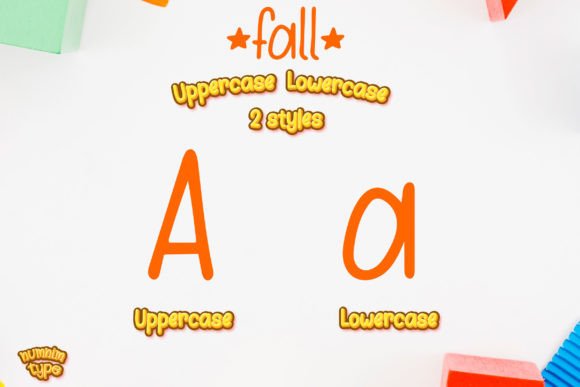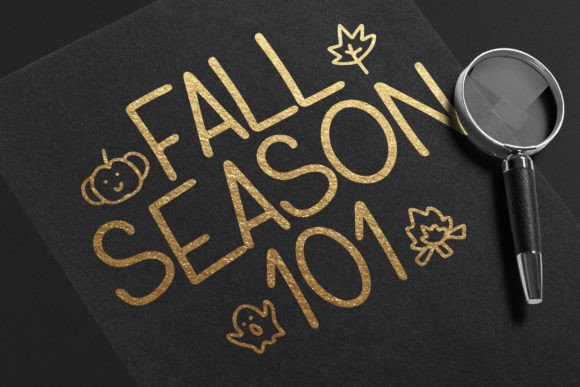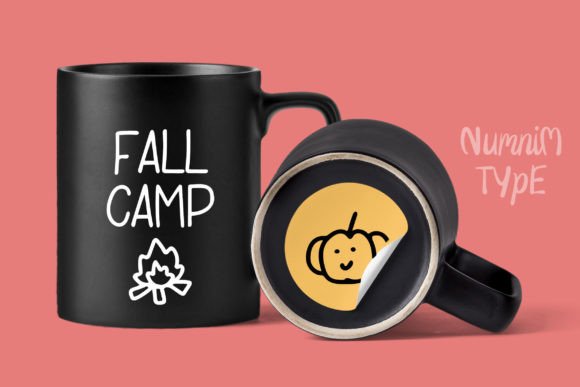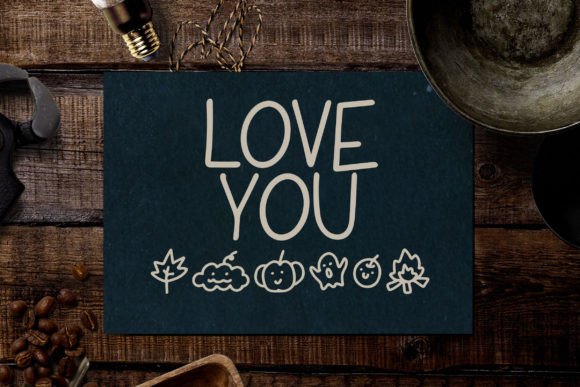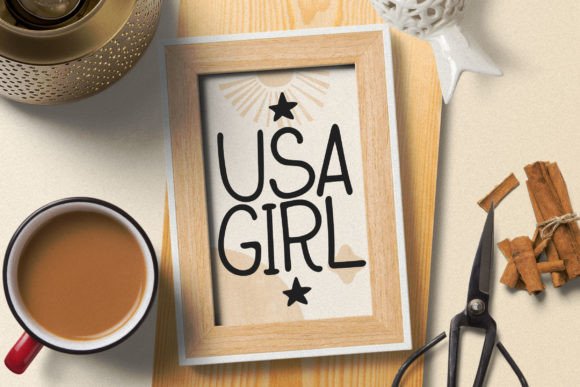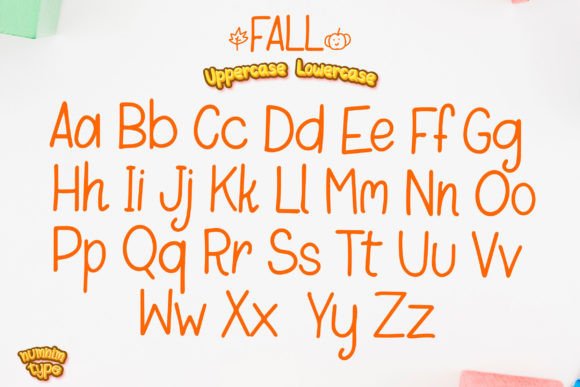
The Perfect Font for Fall: A Comprehensive Guide to Fall Font
As a designer, I’ve had my fair share of frustrating moments while working on a project. One of those moments was when I was tasked with creating a set of Autumn-themed stickers for a client’s social media campaign. I had a clear vision of what I wanted to achieve, but I was struggling to find the right font that would bring it all together. That’s when I stumbled upon Fall Font, a cute and uniquely crafted handwritten font that instantly caught my attention.
Fall Font is more than just a font – it’s a design solution that can elevate your creative projects to the next level. Its fun and playful characters make it perfect for stickers, mugs, t-shirts, ornaments, Autumn event cards, and more! In this article, we’ll dive into the world of Fall Font, exploring its features, benefits, and practical applications.
An Honest Review of Fall Font
What I Love About Fall Font ✨
- ✅ Unique and playful character design that adds a personal touch to any project
- ✅ PUA encoded, making it easy to access all glyphs and swashes
- ✅ Perfect for a variety of design applications, from stickers to event cards
- ✅ Fun and playful vibe that’s sure to capture the essence of Autumn
- ⚠️ Limited language support, so it’s best suited for English or similar languages
- ⚠️ Some users may find the font a bit too playful or childish for certain projects
The Story Behind Fall Font
Fall Font was designed by a creative team that’s passionate about typography and design. The team wanted to create a font that would capture the essence of Autumn, with its warm colors, cozy atmosphere, and playful vibe. After months of research and design, Fall Font was born – a unique and charming handwritten font that’s perfect for a variety of design applications.
| Font Name | Fall Font |
| Author | numnim |
PUA (Private Use Area) encoding is a standard that allows font designers to include additional characters and glyphs in their fonts. In the case of Fall Font, PUA encoding enables users to access a wide range of glyphs and swashes, making it easier to create unique and creative designs.